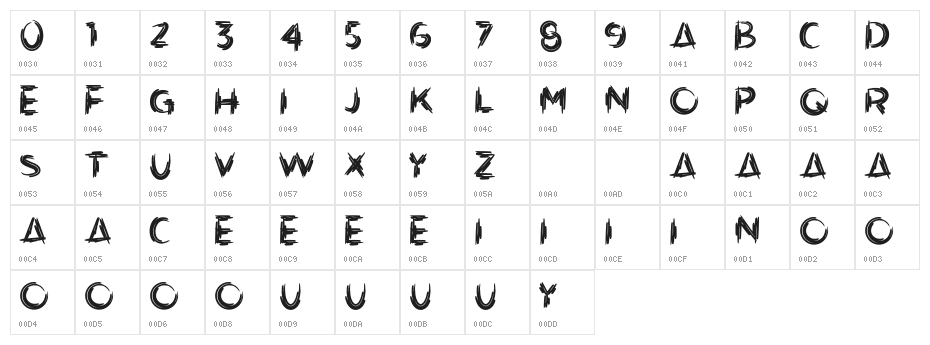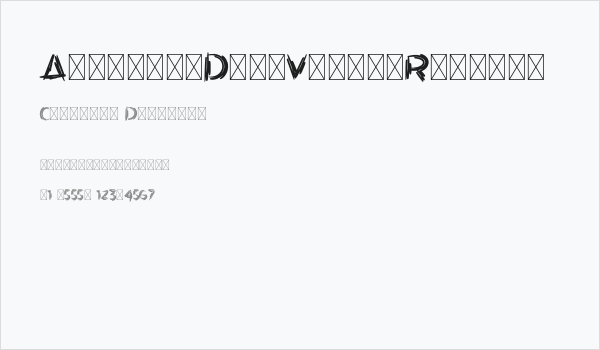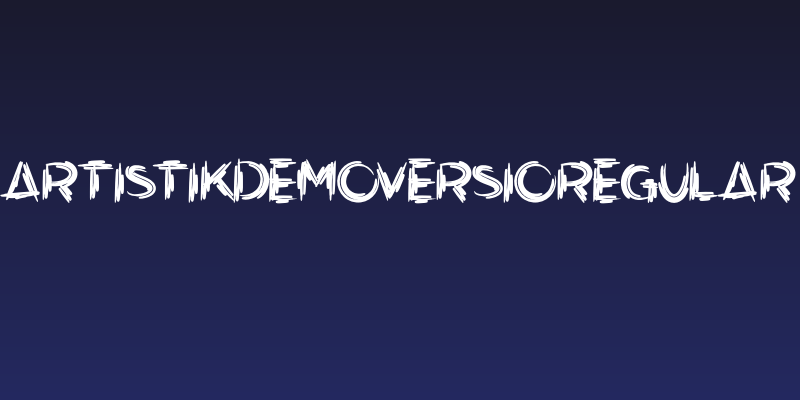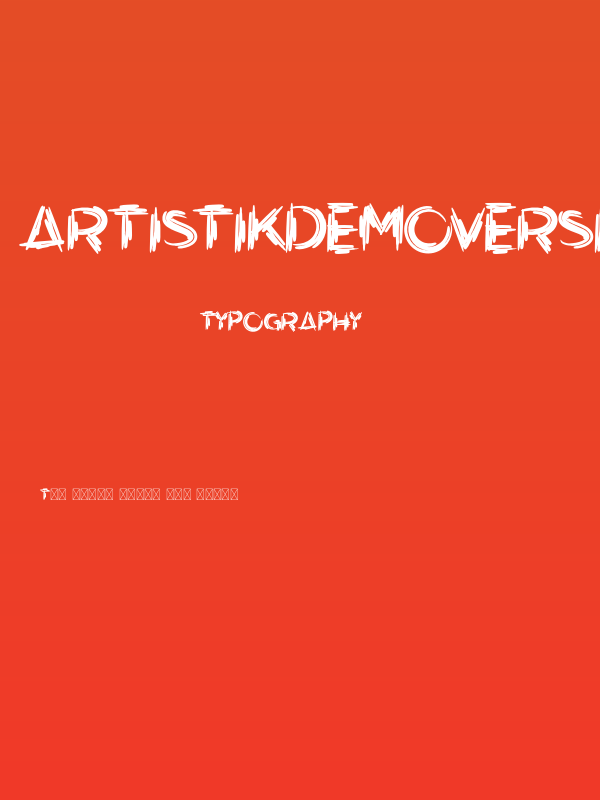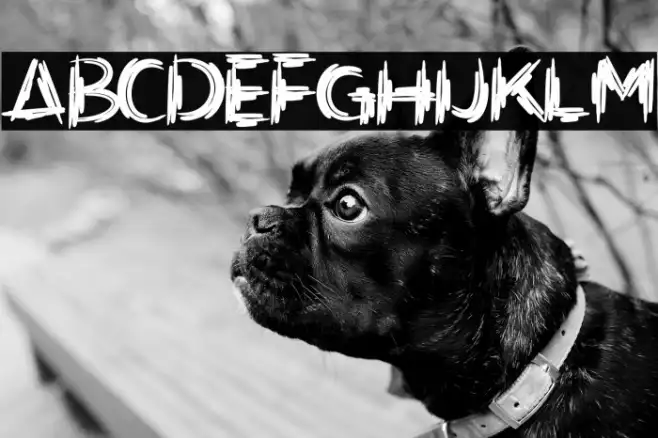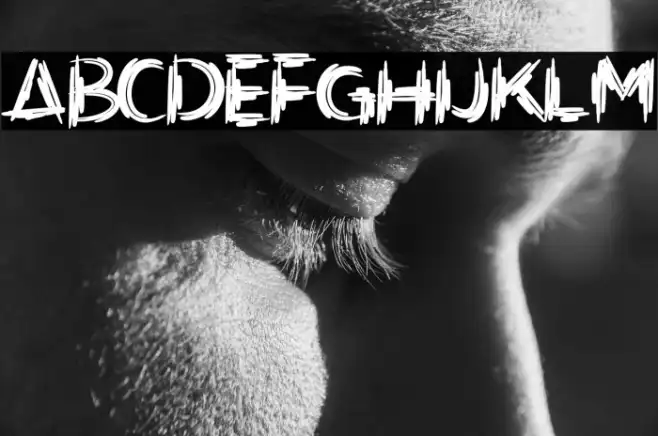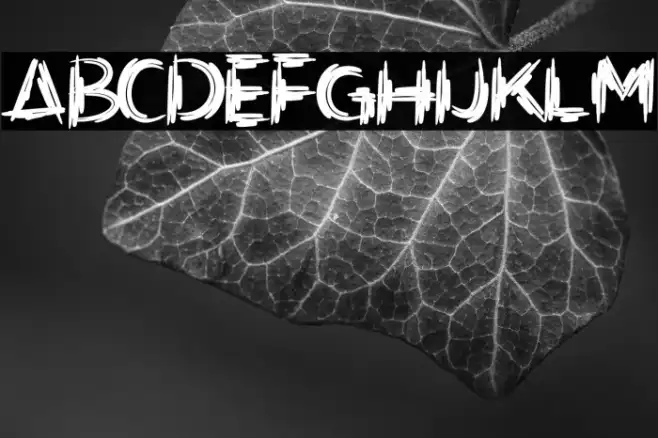
ArtistikDemoVersioRegular Font
ArtistikDemoVersioRegular Description
This font features a bold and dynamic brushstroke style, giving it a hand-painted appearance. The uppercase letters are characterized by sharp angles and a sense of movement, while the numbers maintain a consistent, energetic flow. The overall design is expressive and artistic, making it ideal for projects that require a creative and bold statement. The absence of lowercase letters and special characters suggests a focus on impactful headlines or titles.
| Proposed Projects | Ideal for artistic posters, creative branding, and eye-catching headlines. |